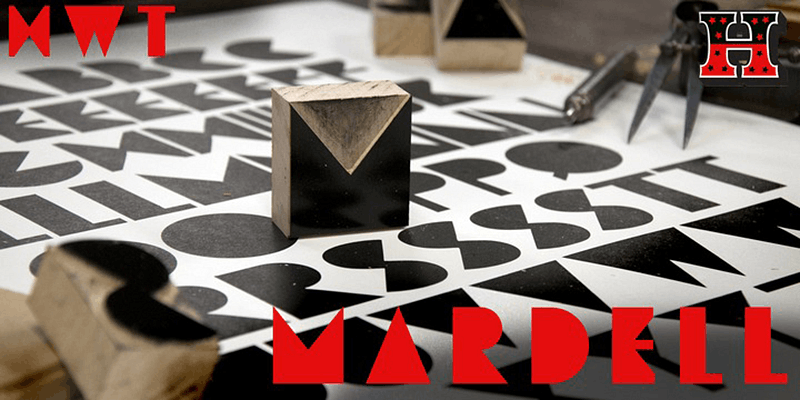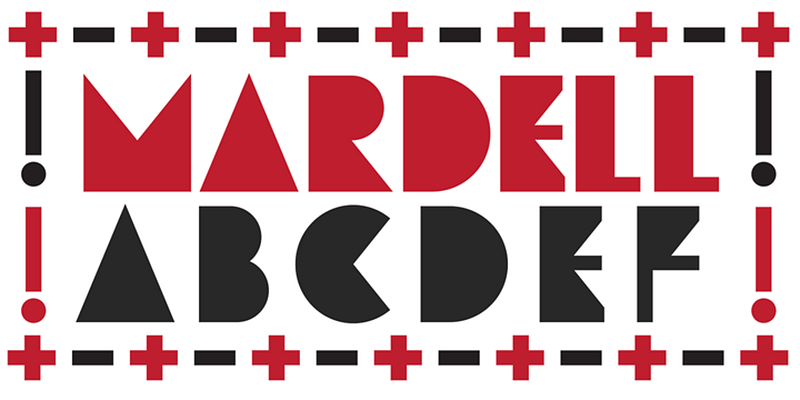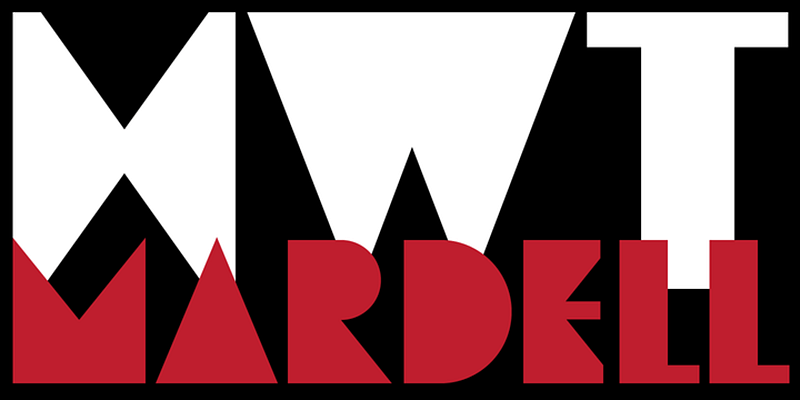
HWT Mardell presents Louise Fili’s wood type design for use in digital applications. “The bold, lively angularity of Italian futurist letterforms made it a natural choice for wood type.” says Fili.
Hamilton Wood Type Collection, established in 2012, is a joint venture between P22 Type Foundry and the Hamilton Wood Type & Printing Museum. The founding goal was to safeguard a typographic era and make classic wood type designs available as digital fonts for modern audiences. This historical collection of serif revivals, sans reinterpretations, decorative embellishments, script reclamations, and original chromatic designs is stunningly relevant and usable for any imaginative design practice.